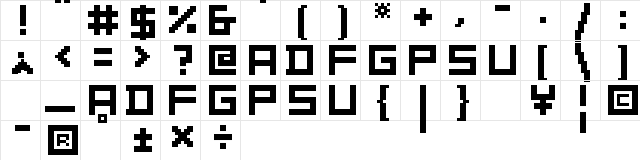
UF daasaang Regular
| Foundry | Ultrafonts |
| Designer | Nathan Matteson |
Design Context for UF daasaang Typeface
UF daasaang takes a measured approach to typography — its balanced proportions and neutral character make it a reliable workhorse for both digital and print work.